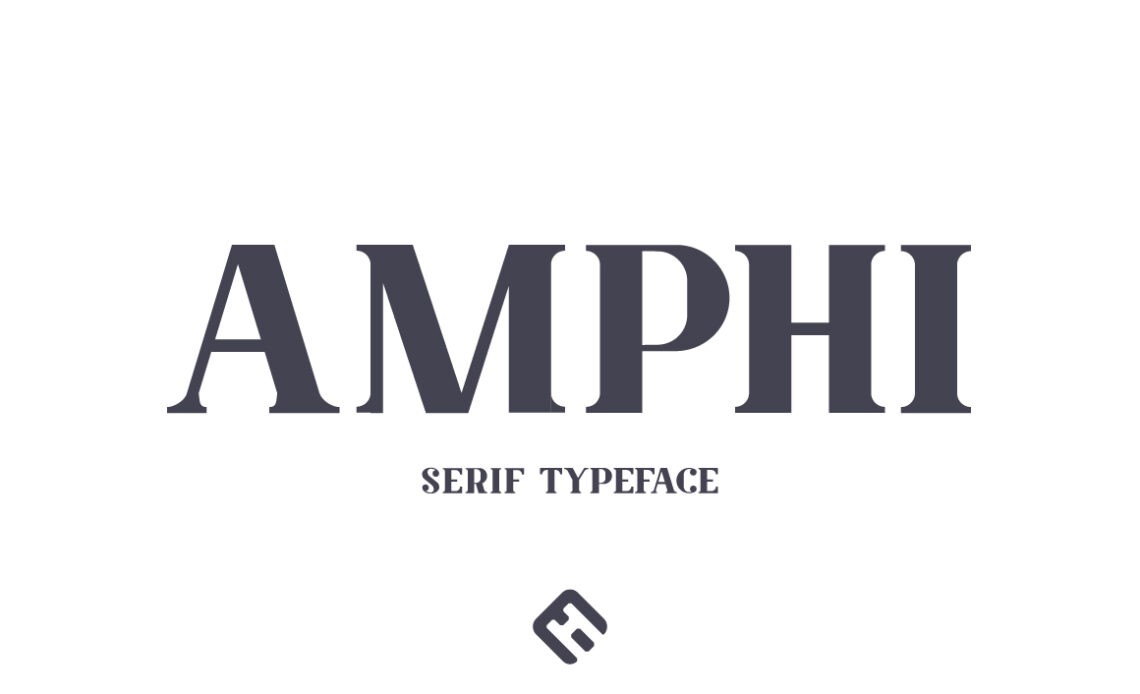
Introducing Amphi Font, a remarkable serif typeface inspired by the grandeur of ancient Roman architecture. Its bold lines and sturdy structure create a timeless and impactful visual presence, ready to elevate any design project.
Crafted by the renowned typographer Mike Hill, Amphi embodies the strength and elegance of Roman arches and columns. Its clean, geometric forms exude a sense of order and authority, while its understated curves add a touch of warmth and approachability. Whether you're creating headlines that demand attention or body text that invites engagement, Amphi Font is the perfect choice.
Available in three distinct styles – Regular, Stencil, and Broken – Amphi Font offers versatile options for any design concept. The Regular style provides a classic and refined look, while the Stencil style adds a contemporary edge with its sharp, cut-out letters. The Broken style, with its distressed and fractured texture, evokes a sense of vintage charm and adds a unique twist to any design.
Whether you're a designer seeking a statement-making typeface or a writer seeking a font that conveys both authority and elegance, Amphi Font is the perfect solution. Embrace the timeless beauty of ancient Rome in your next creative endeavor and watch your designs stand out with exceptional style and impact.